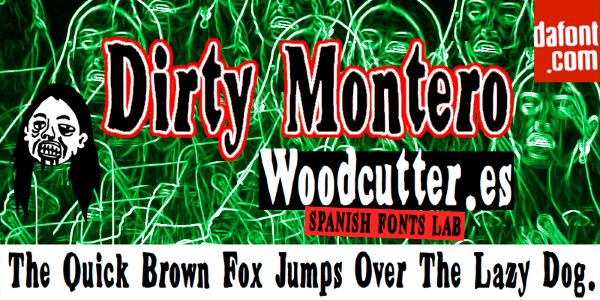
Dirty Montero Font
Dirty Montero Font is a 1940s Font by Woodcutter whose quirky, atmospheric letterforms bring a teasing, mysterious attitude to every design they touch. Its grunge-infused old-style character is perfect for evoking that unsettling, slightly sinister mood that makes Halloween posters, escape room graphics, and antique apparel designs feel genuinely convincing and impossible to ignore.